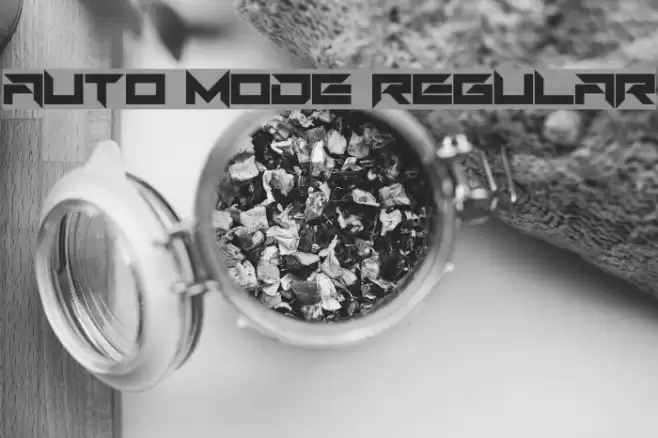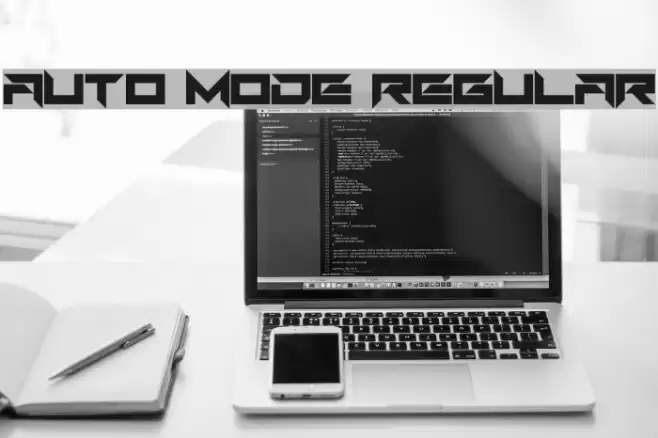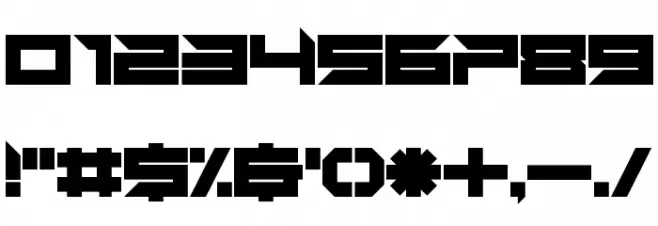
Auto Mode Regular Font
Auto Mode Regular Description
This font features a bold, geometric design with sharp angles and a futuristic aesthetic. The characters are constructed with a series of straight lines and pointed edges, giving it a dynamic and aggressive appearance. The uppercase and lowercase letters maintain a consistent style, with a uniform height and width that contributes to its blocky, mechanical look. The numbers and special characters follow the same design principles, ensuring a cohesive visual identity across all elements. This font is highly stylized, making it ideal for projects that require a modern and edgy feel.
A bold, geometric font with sharp angles and a futuristic style from Uncategorized fonts.
- Overall Style: Futuristic